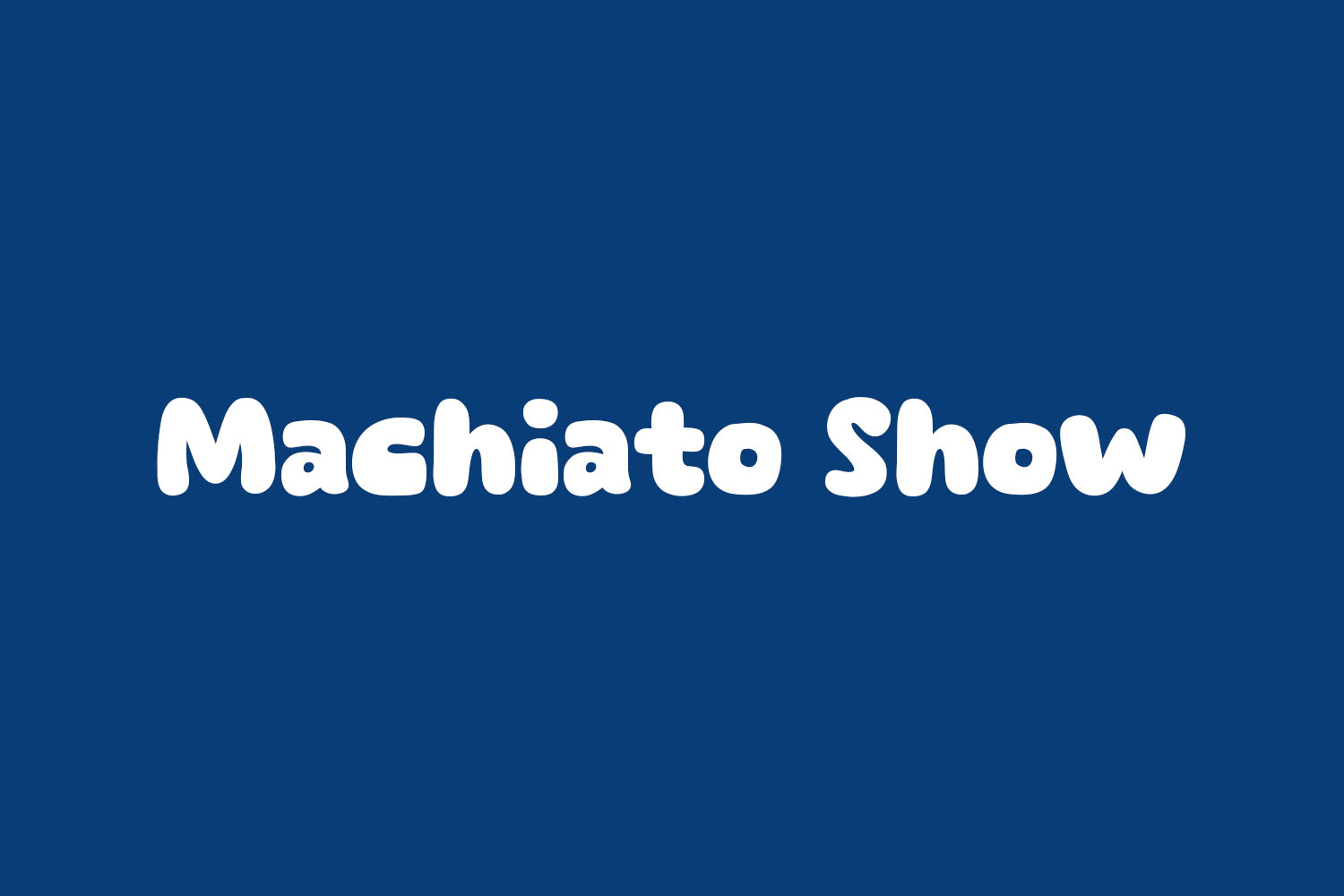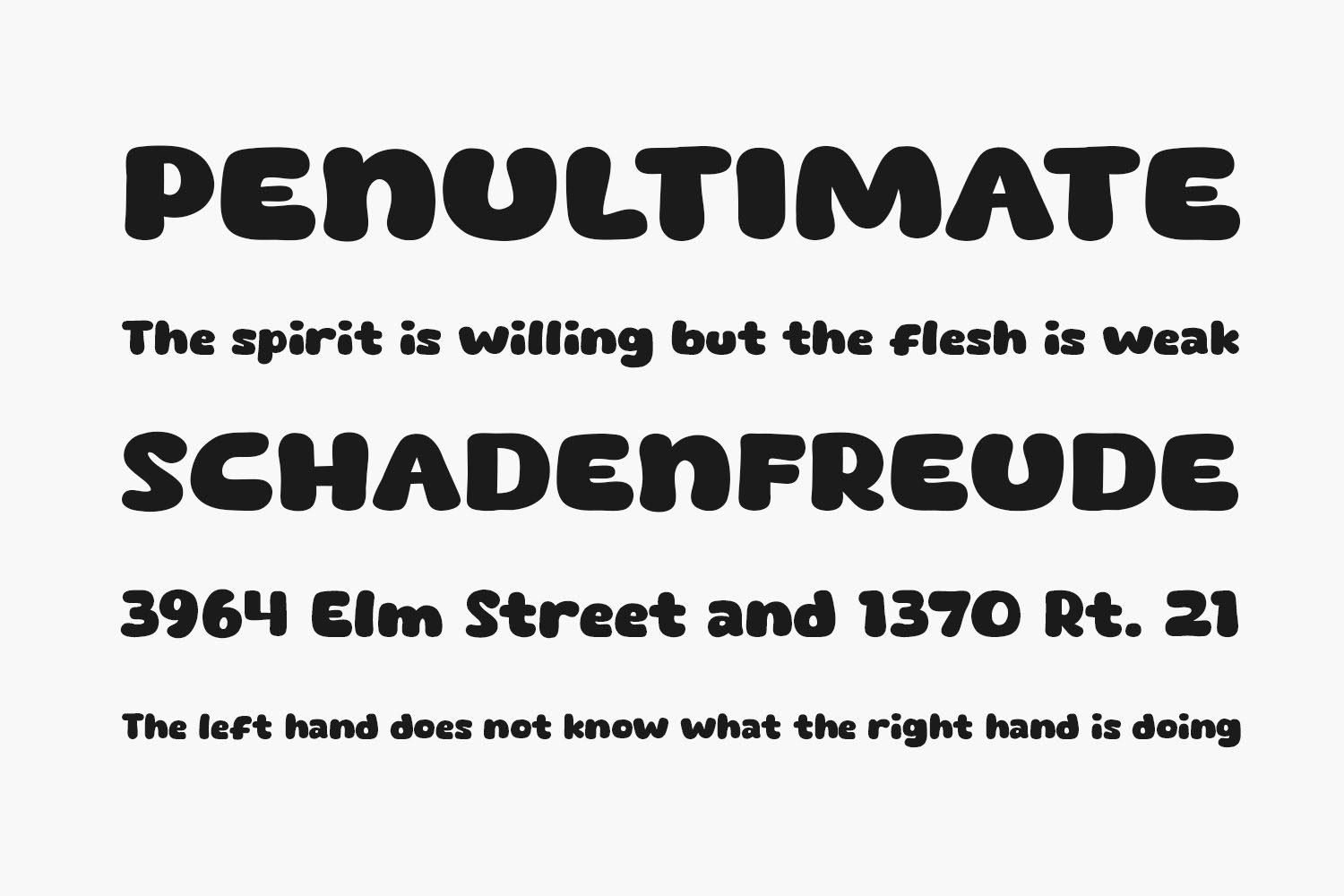
Introducing Machiato Show Free Font, a sophisticated and stylish display font tailored for posters, logos, magazines, book covers, banners, and beyond! Acquire this extraordinary font to craft captivating designs. Its versatility seamlessly complements a vast array of projects, making it the perfect addition to your creative endeavors. Watch as it effortlessly elevates your ideas, ensuring they stand out with distinctive flair. Machiato Show Free Font is free for personal use only. Please purchase the full version for commercial use.